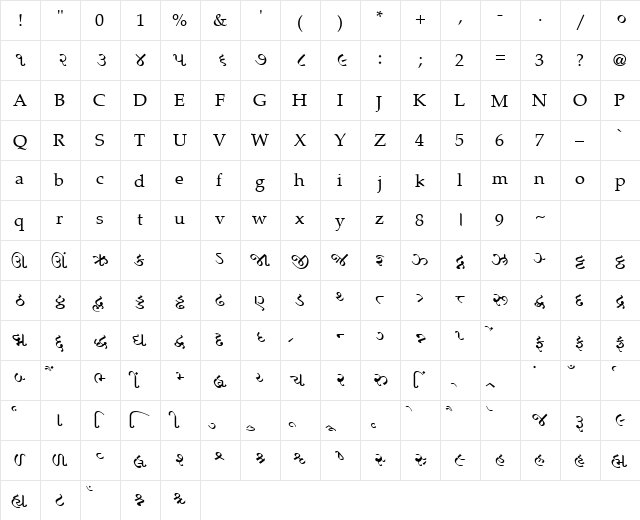
AkrutiOfficeFalguni Normal
Design Context for AkrutiOfficeFalguni Typeface
AkrutiOfficeFalguni takes a measured approach to typography — its balanced proportions and neutral character make it a reliable workhorse for both digital and print work.